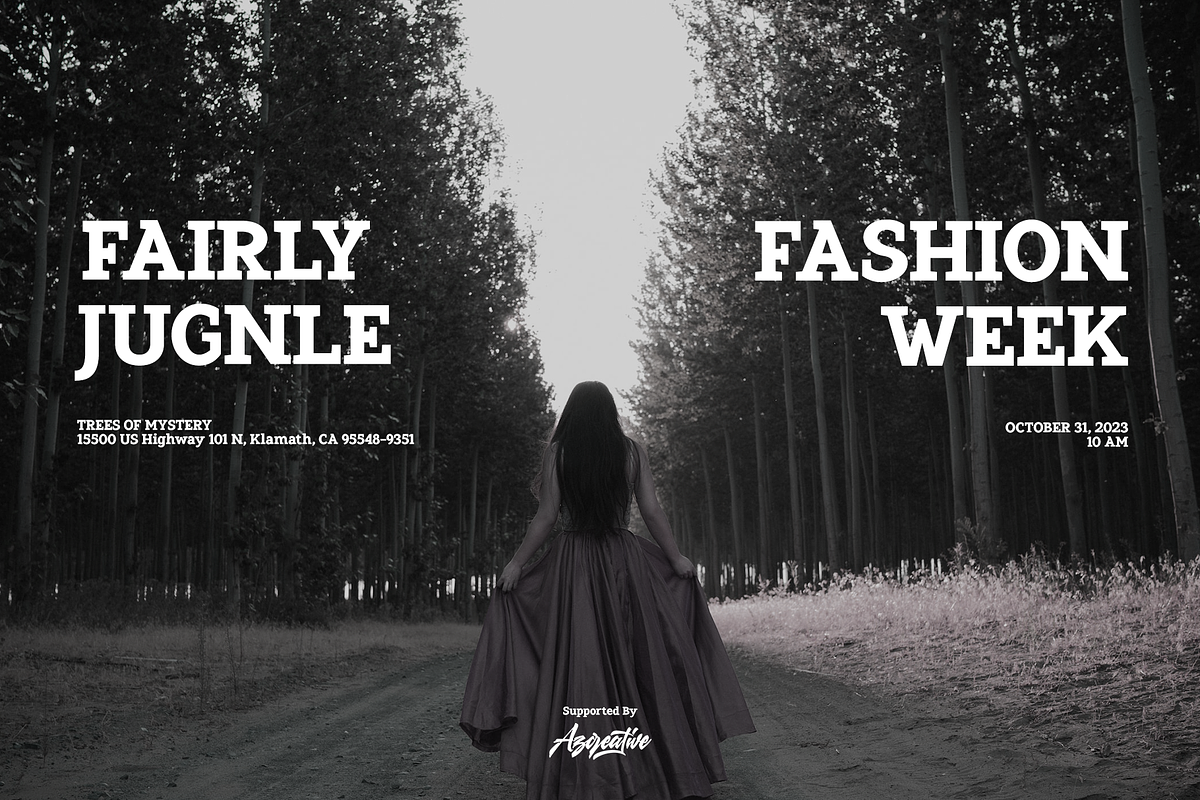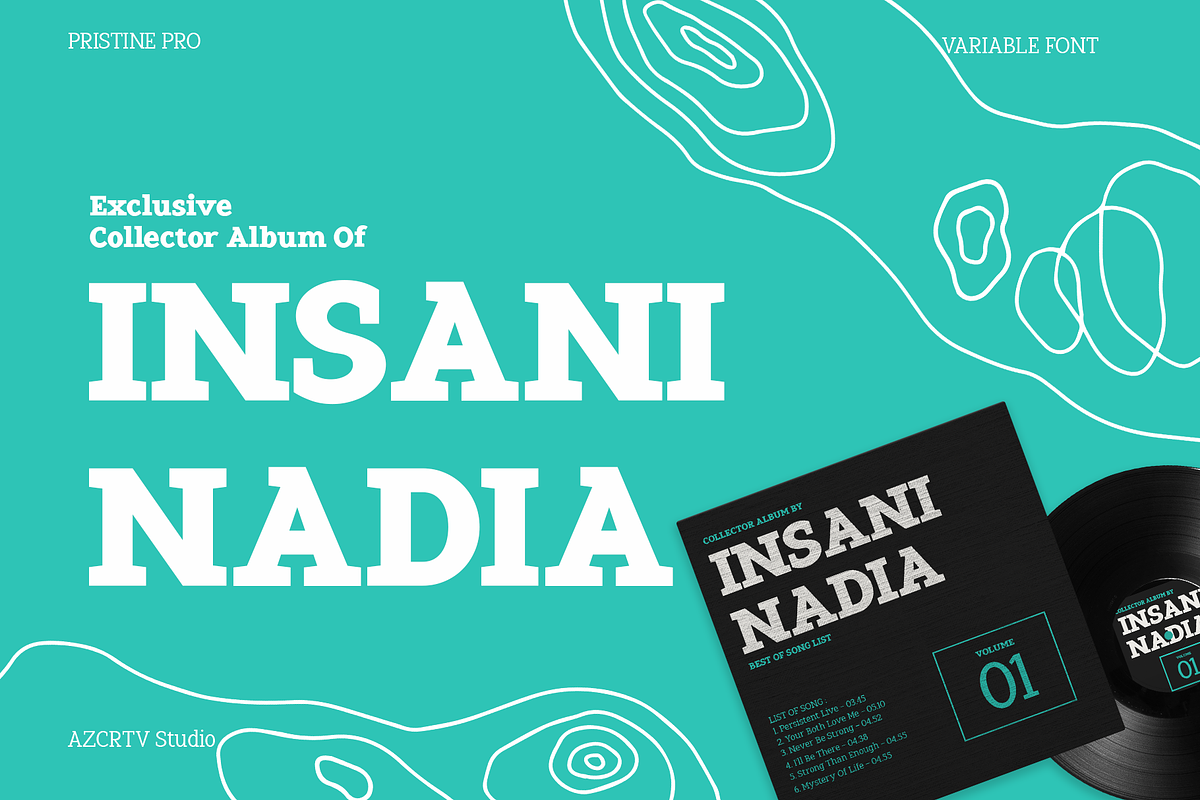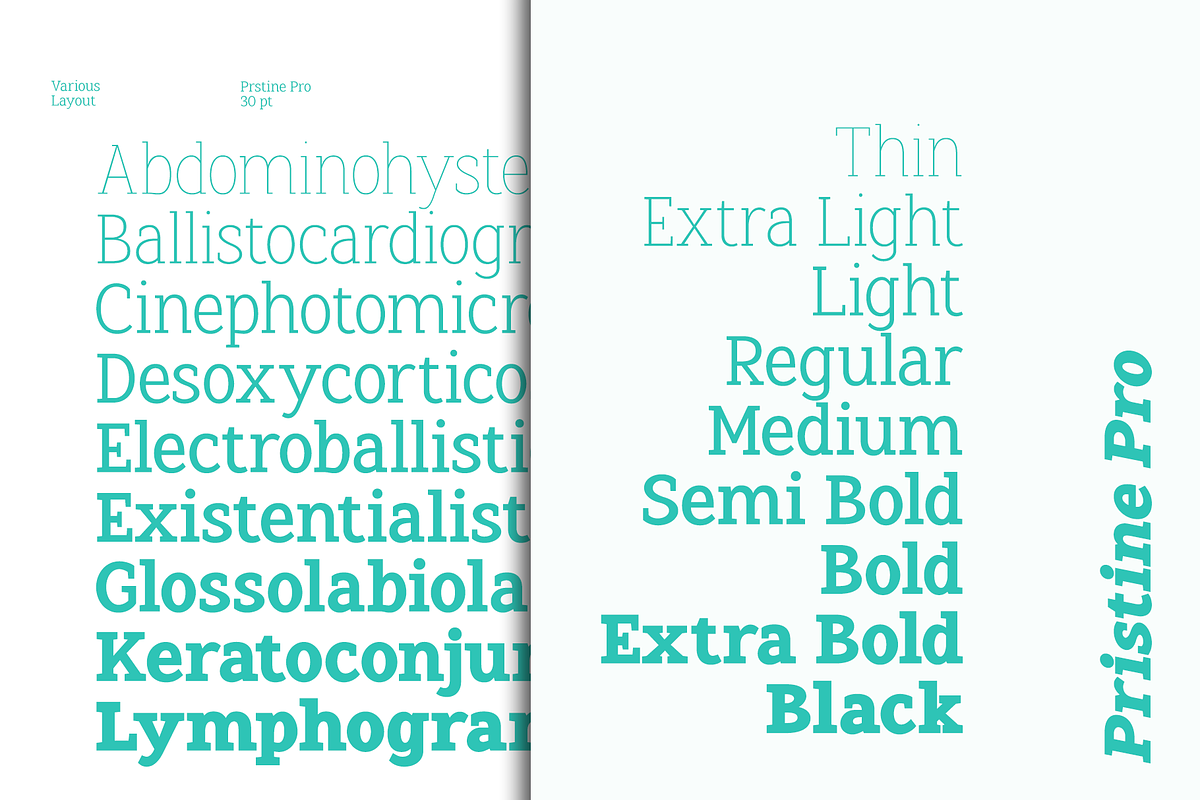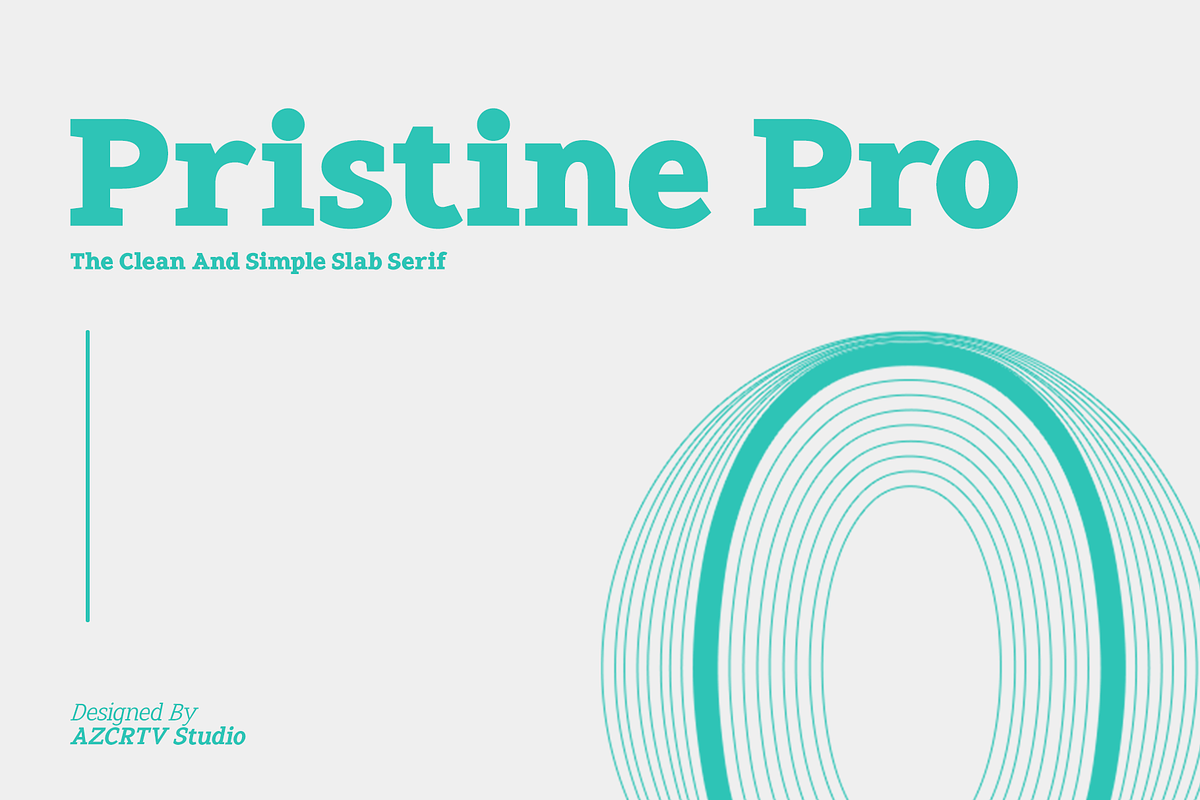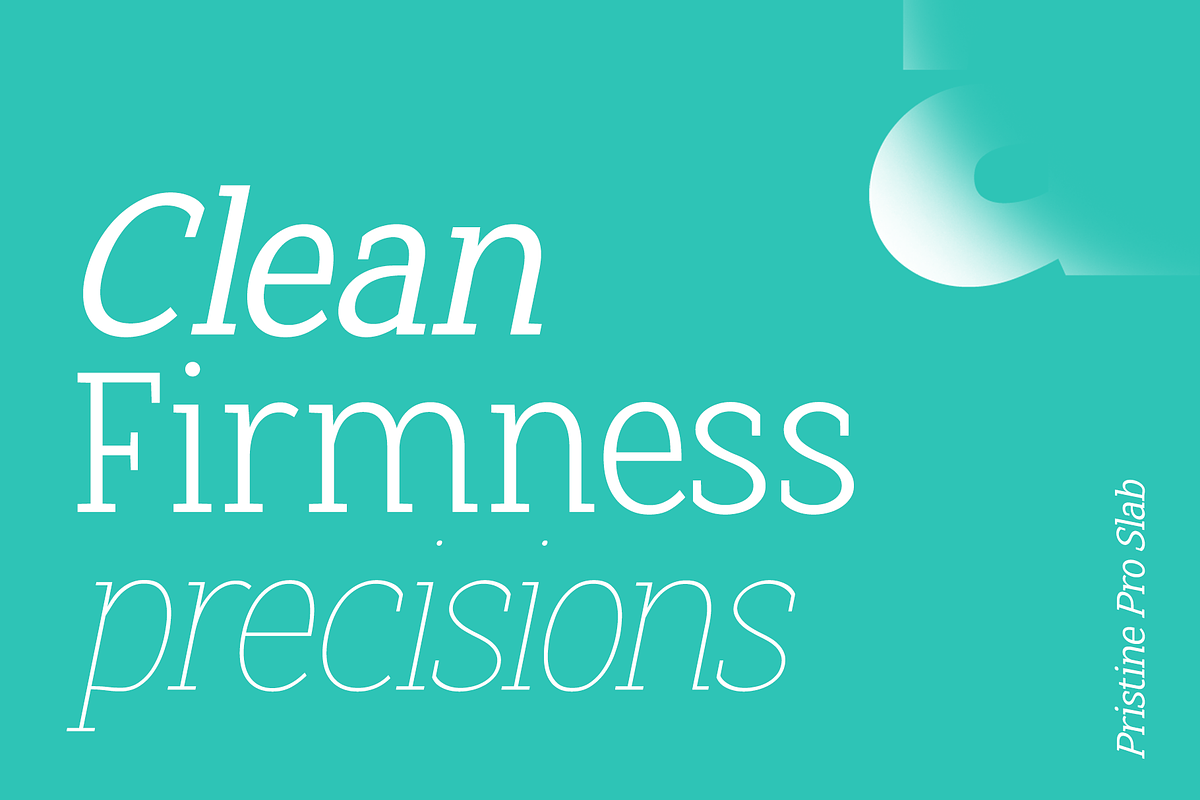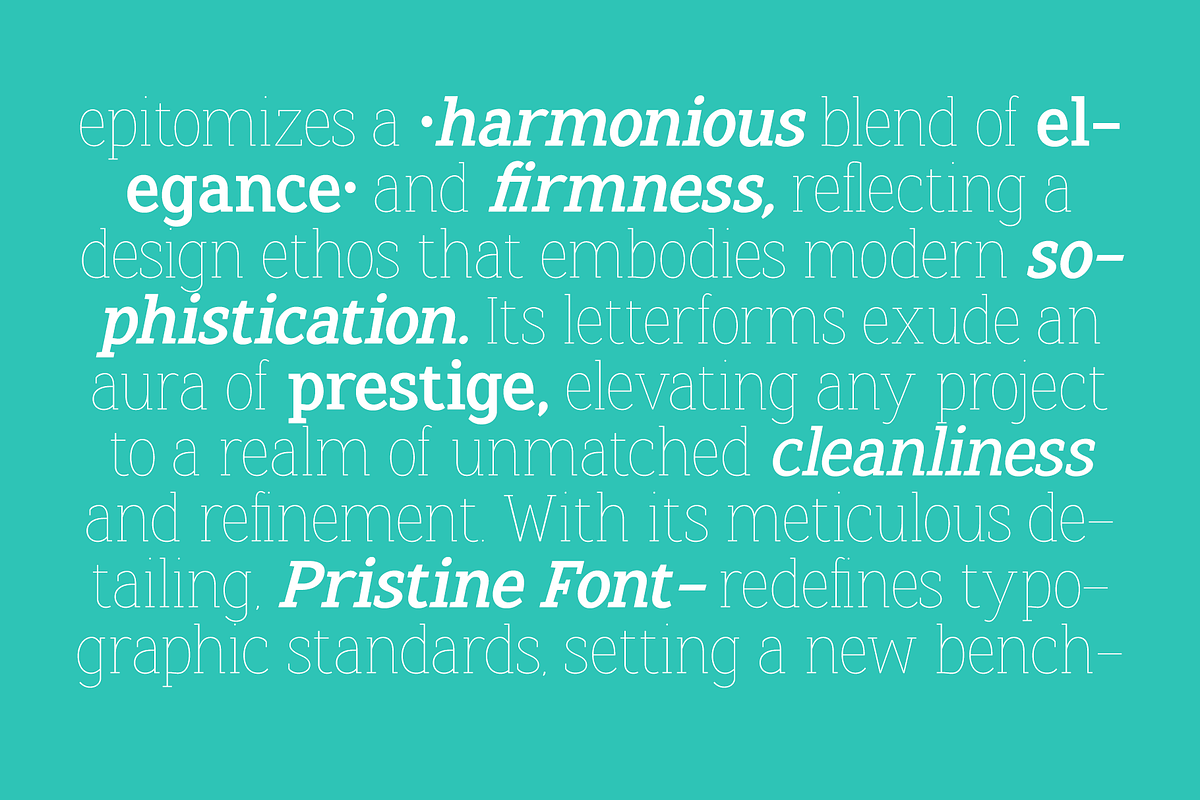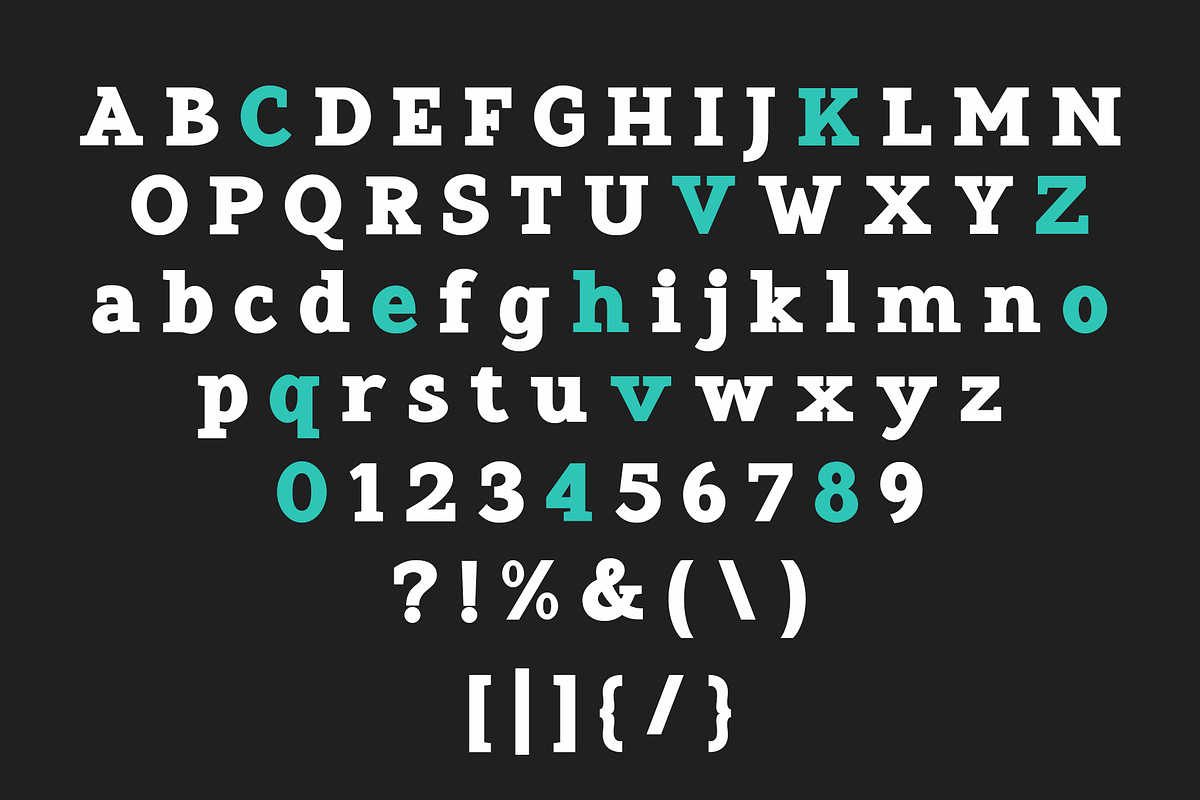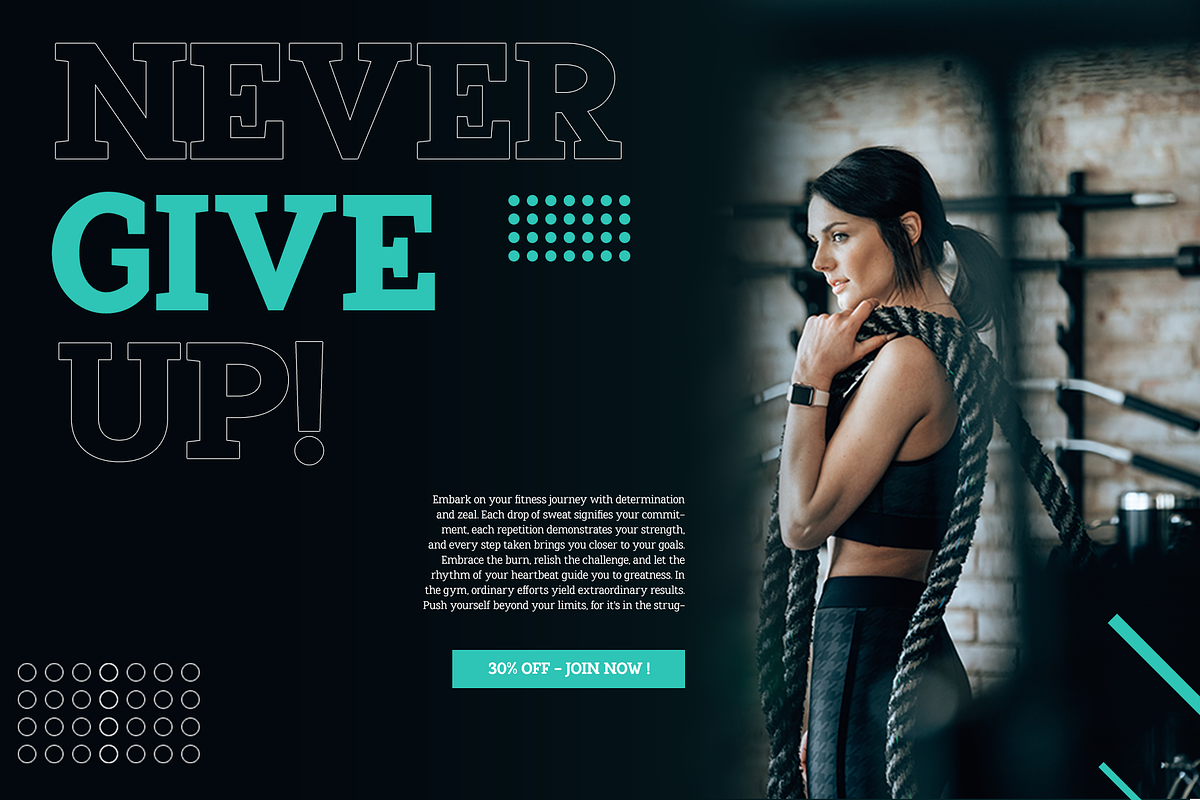
Pristine Pro - Elegant Slab Family
Attention, designers and creatives! Meet Pristine Pro, the epitome of elegance and precision in typography. This Slab Serif font, meticulously developed with a humanistic touch, promises unparalleled sophistication for your projects. Its 18 versatile font families, ranging from Thin to Black, offer a tailored solution for every design need.
Explore the seamless blend of clean lines and firm structure that defines Pristine Pro. This font isn't just a typeface; it's a statement of modernity and style. With support for 89 international languages, including English, French, Spanish, and German, Pristine Pro caters to a global audience, ensuring your designs communicate effectively worldwide.
Pristine Pro delivers. Craft compelling branding, striking posters, or editorial layouts with confidence. Its immaculate precision and extensive language support empower your creativity. Your desire for flawlessness finds its match in Pristine Pro, promising visuals that captivate, leaving a lasting impression on any audience.